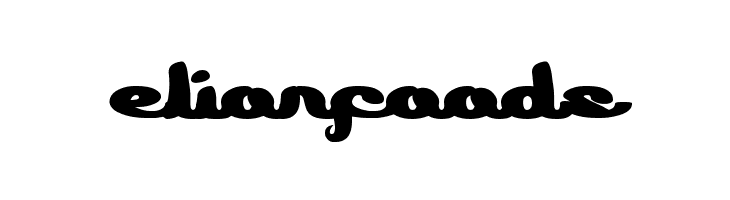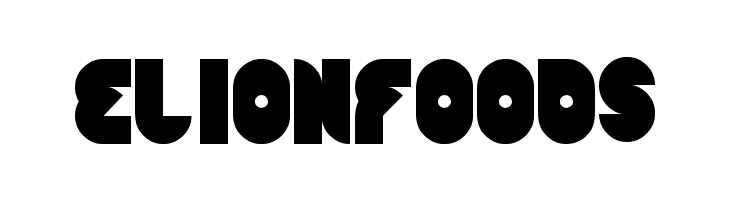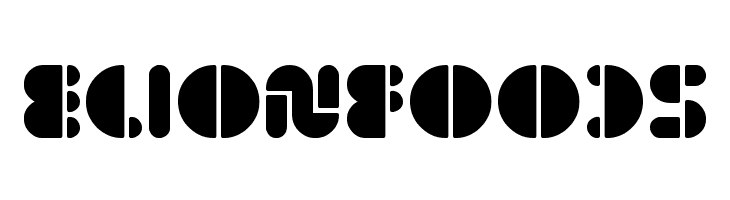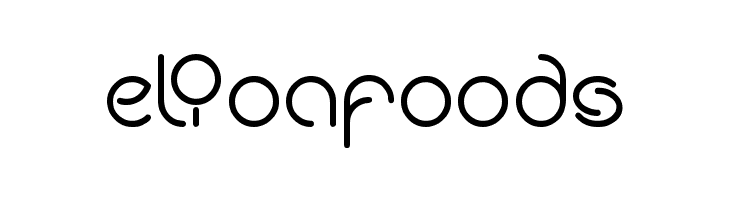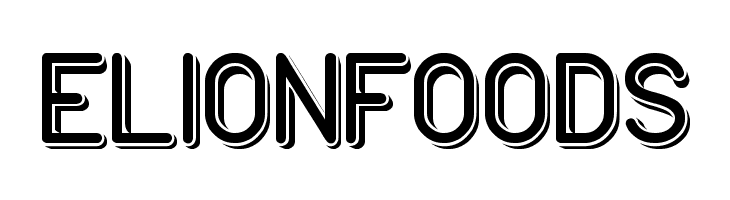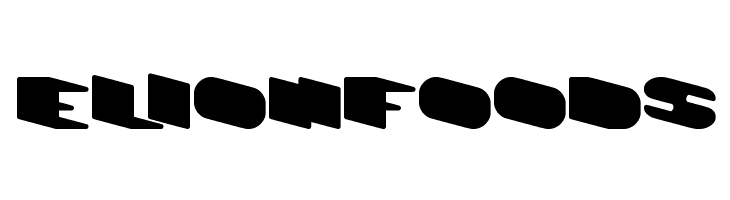
A bold, textured, hand-drawn style font with a playful and artistic feel.
A bold, playful font with decorative curls and loops.
A bold, geometric font with playful, modern design elements.
A bold, geometric font with thick strokes and a strong presence.
A modern, geometric font with rounded edges and a bold, uniform appearance.
A futuristic, geometric font with bold, angular letterforms.
A bold, geometric font with a futuristic and abstract design.
A modern, rounded font with a playful and cohesive design.
A bold, outlined font with a modern, geometric style.
A bold, geometric font with a three-dimensional effect and retro appeal.